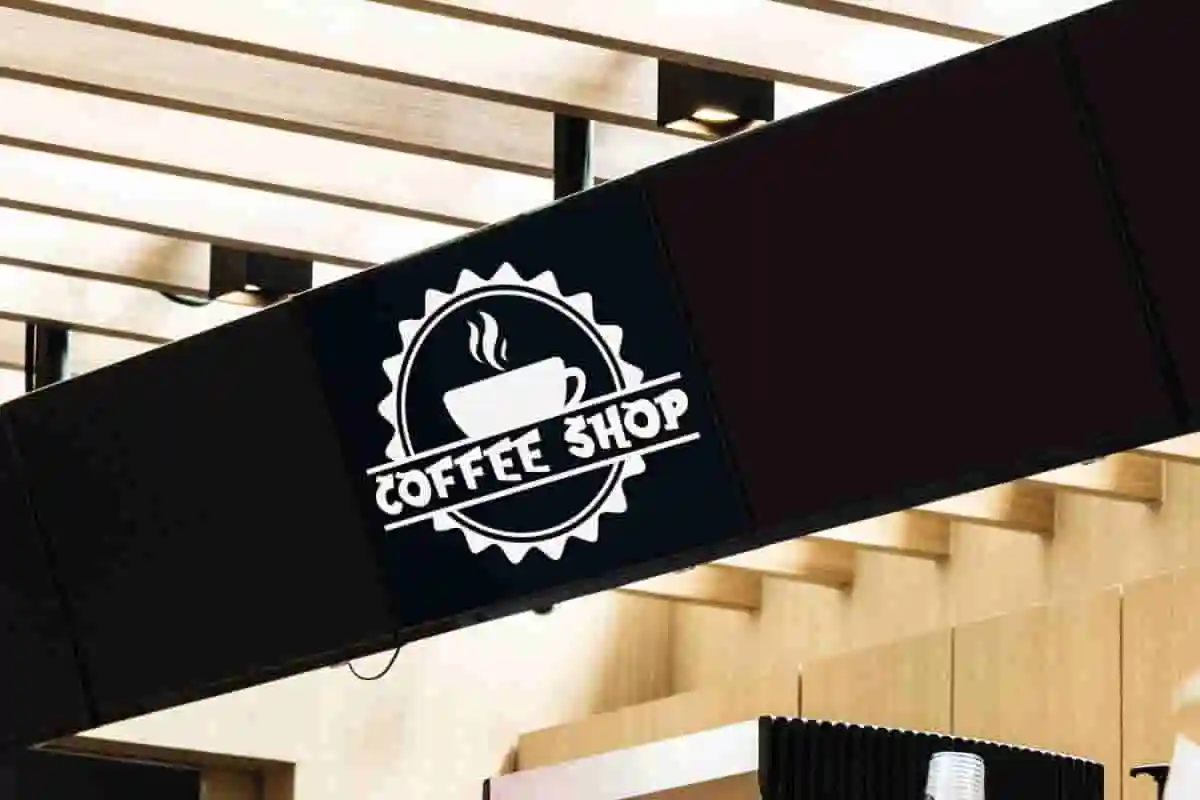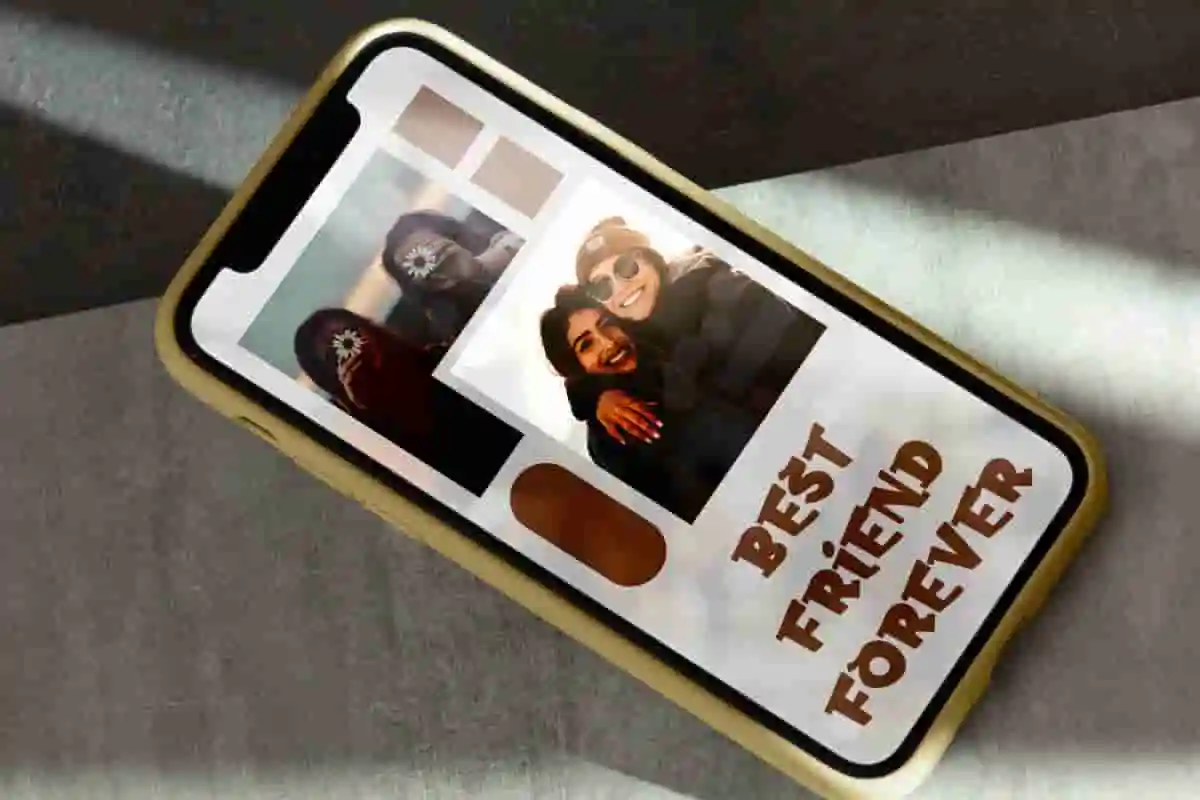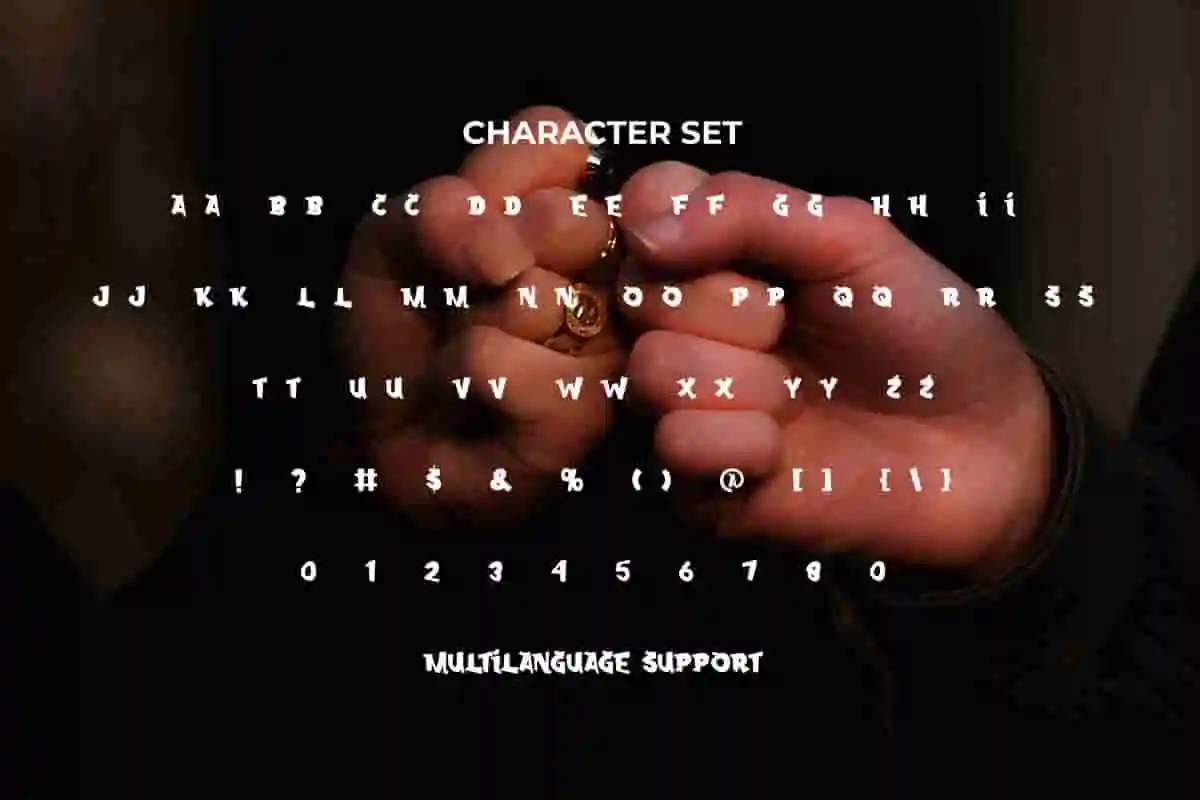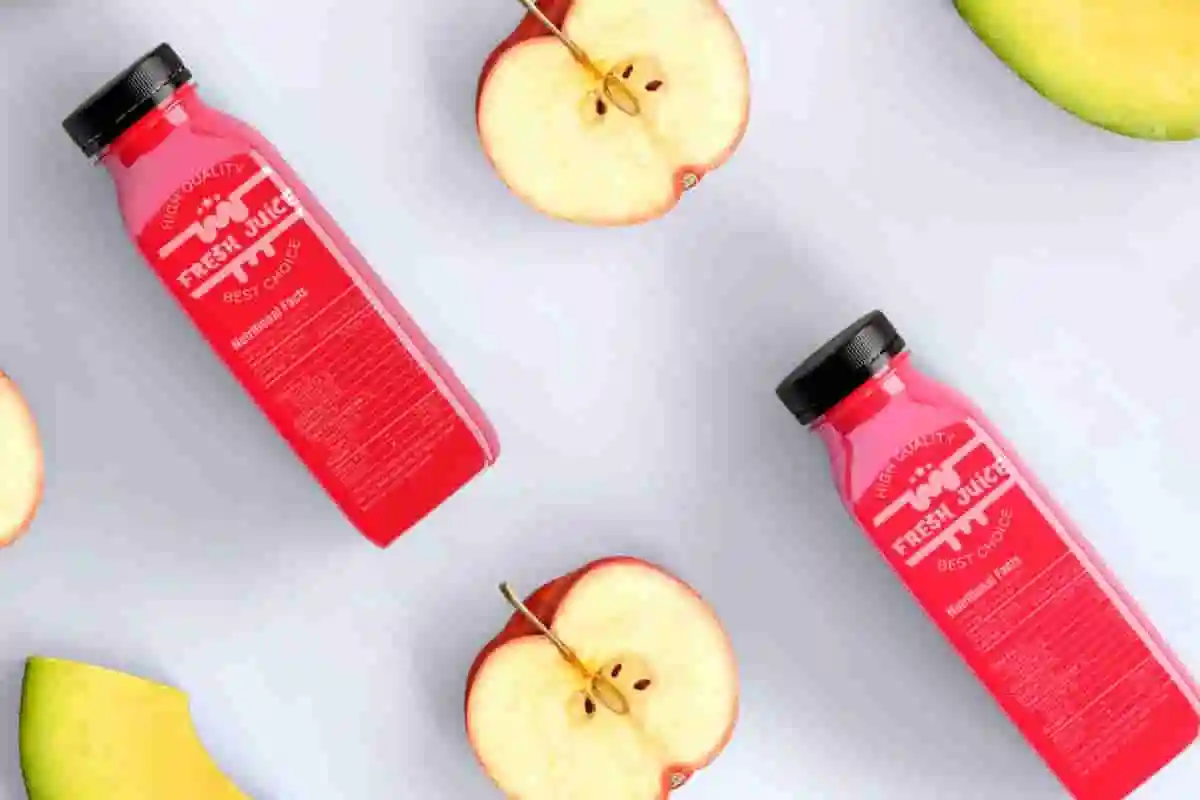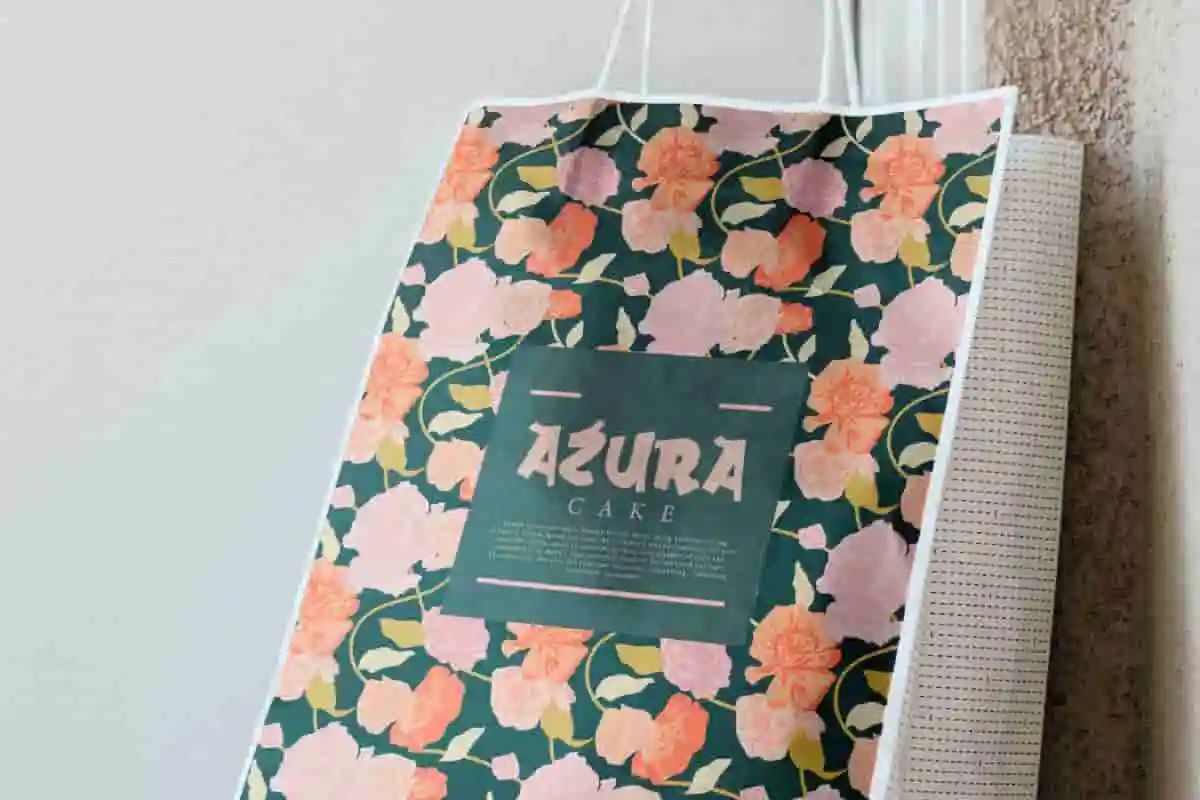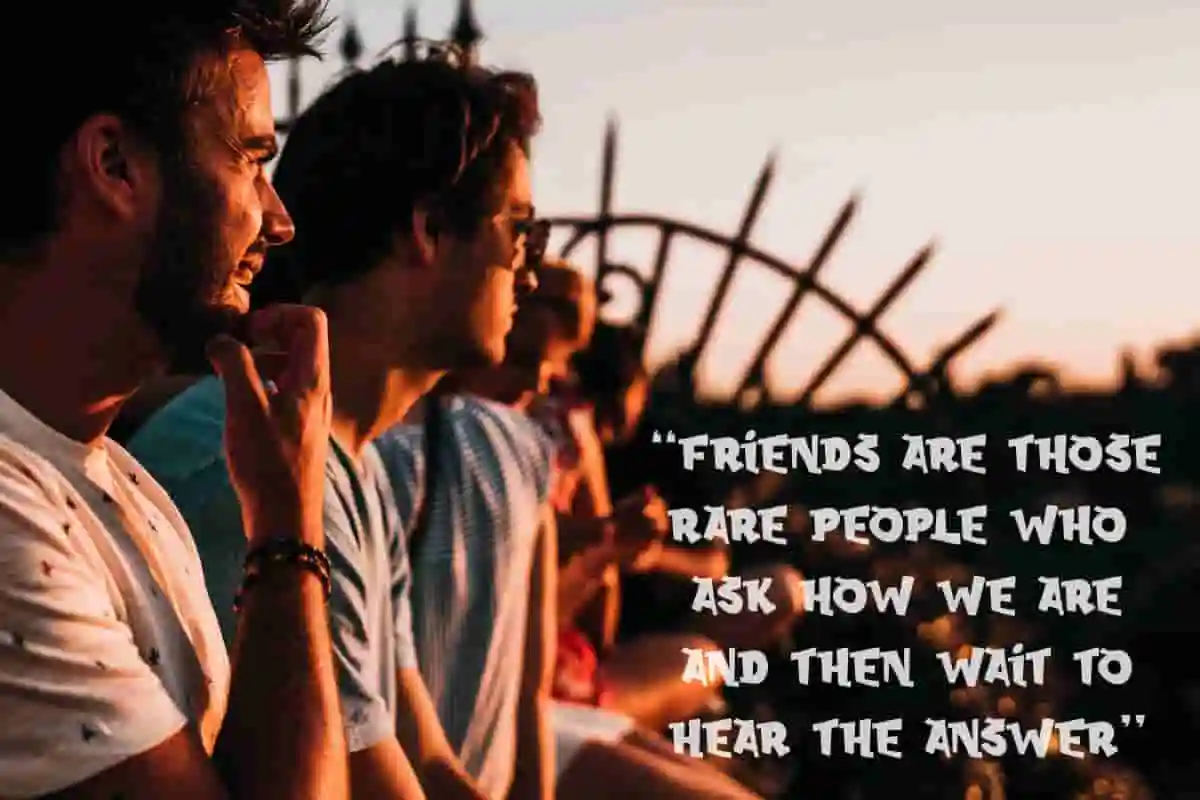
New Bestie Display Font
New Bestie Font is a playful quirky display font in all caps style. It’s great variety of design ideas. Use this display font to add a special beam look to any design idea you can think of!
New Bestie Font is a playful quirky display font in all caps style. The bold and odd shape makes it stand out from every background and will readily become your new friend in any creative projects, such as apps, billboard, blogs, brand identity, brochure, cards, comics, cover, flyer, header, invitation, label, logos, mock up design, mugs, packaging, phone case, poster, product brands, quote, screen print, signage, social media posts, stationery, stickers, t-shirt designs, thank you card, title, website, or any project that allows you to think out of the box!
Say hello to New Bestie Display Font, a vibrant and charming display font that brings warmth and playfulness to every project. Whether you’re designing invitations, social media posts, branding materials, or product packaging, this font makes your text stand out with a friendly, inviting vibe. Featuring smooth curves, balanced proportions, and a modern style, New Bestie is perfect for creatives who want their work to feel approachable and memorable.
Meet New Bestie Display Font, a lively and playful display font designed to add personality, charm, and energy to your creative projects. Whether you’re crafting social media posts, branding, invitations, or packaging, this font is your new best friend for bold and cheerful typography.
Introducing New Bestie Display Font, a bright and bubbly display typeface designed to bring fun and friendliness to your designs. Whether you’re working on party invitations, kids’ branding, social media posts, or product packaging, this font makes your message pop with personality. With its smooth, rounded edges and modern charm, New Bestie is your go-to font for creating approachable and memorable headlines.
New Bestie Font is a fun experimental display font with a trendy style that is perfect for pulling retro visuals in any industry, such as accessories, advertisement, amusement park, apparel, arts, beverage brand, café, coffee shop, cinema, content creator, crafting, event organizer, furniture, graphic design, handicraft, homeware, interior design, movie, pastry class, photo booth, printing, publishing, restaurant, vlogger, writer, and much more. It’s going to be fun with a retro and vintage vibe most of all making it a favorite in its circles!
New Bestie Font comes with a full set of ALL CAPS for Uppercase and Lowercase Basic Characters, Number, a large range of Punctuation, Symbol and Ligature. You can mix and match for just the right typesetting. The font has also been equipped with multilingual support that is ready to use either on Windows or Mac machines with a simple installation. It’s tested to work well in the Adobe Apps (Illustrator, Adobe InDesign, Adobe Photoshop) CorelDraw, and others. PUA Encode Characters means you can access all the characters easily – Fully accessible without additional design software.